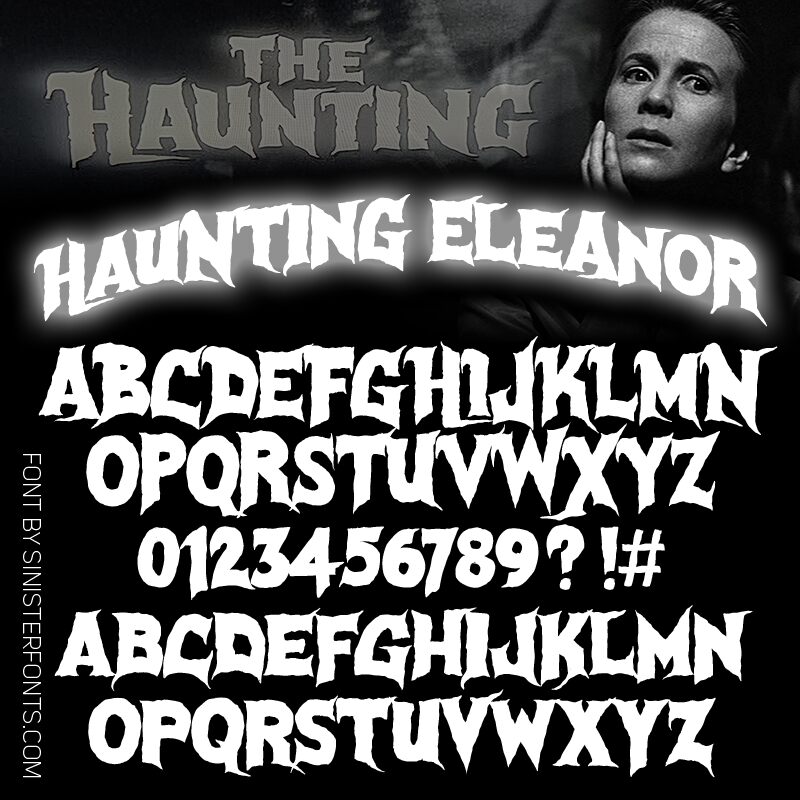
Haunting Eleanor
Haunting Eleanor Font by Chad Savage
Created 2024, hand-lettered. I was watching the extras on my DVD copy of 1963's classic "The Haunting" and was struck by the lettering used for the movie title. I've never seen it anywhere else - just that one trailer. So I had to turn it into a font! I wasn't concerned with it being letter-perfect so much as capturing the look-and-feel. If you've never seen "The Haunting", do yourself a favor and watch this incredibly influential film that inspired elements of Disney's Haunted Mansion and even aspects of Sam Raimi's directing style!
This font is intended for specialty and graphic uses. It will look just awful if used in a paragraph format.
Inspired by the text treatment of the film "The Haunting" in its trailer